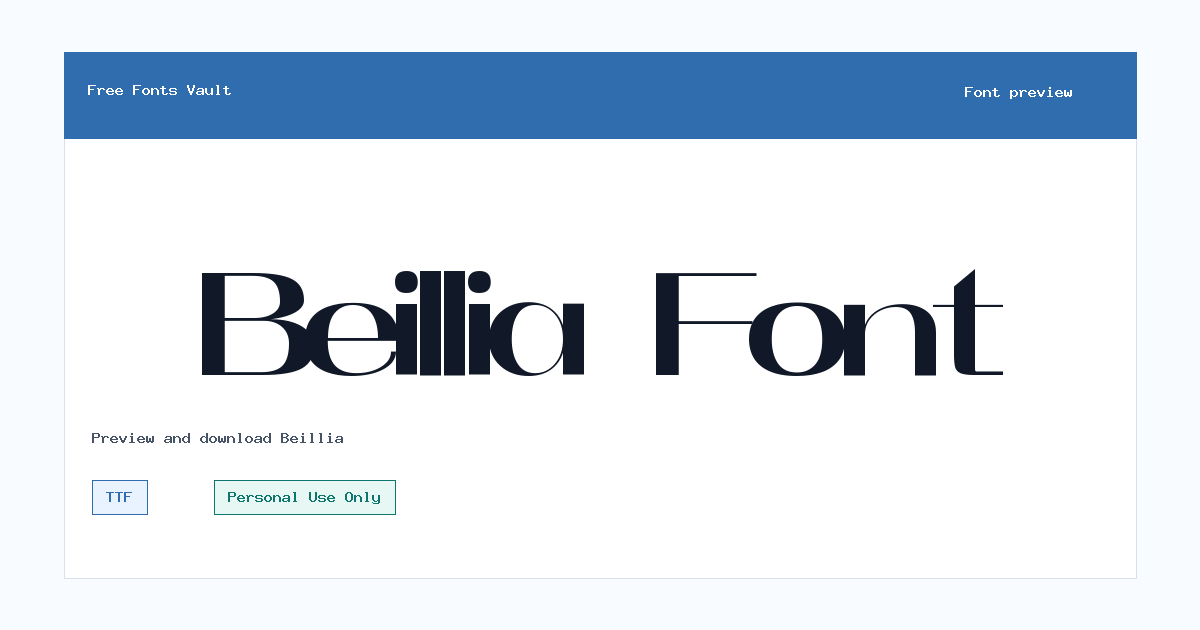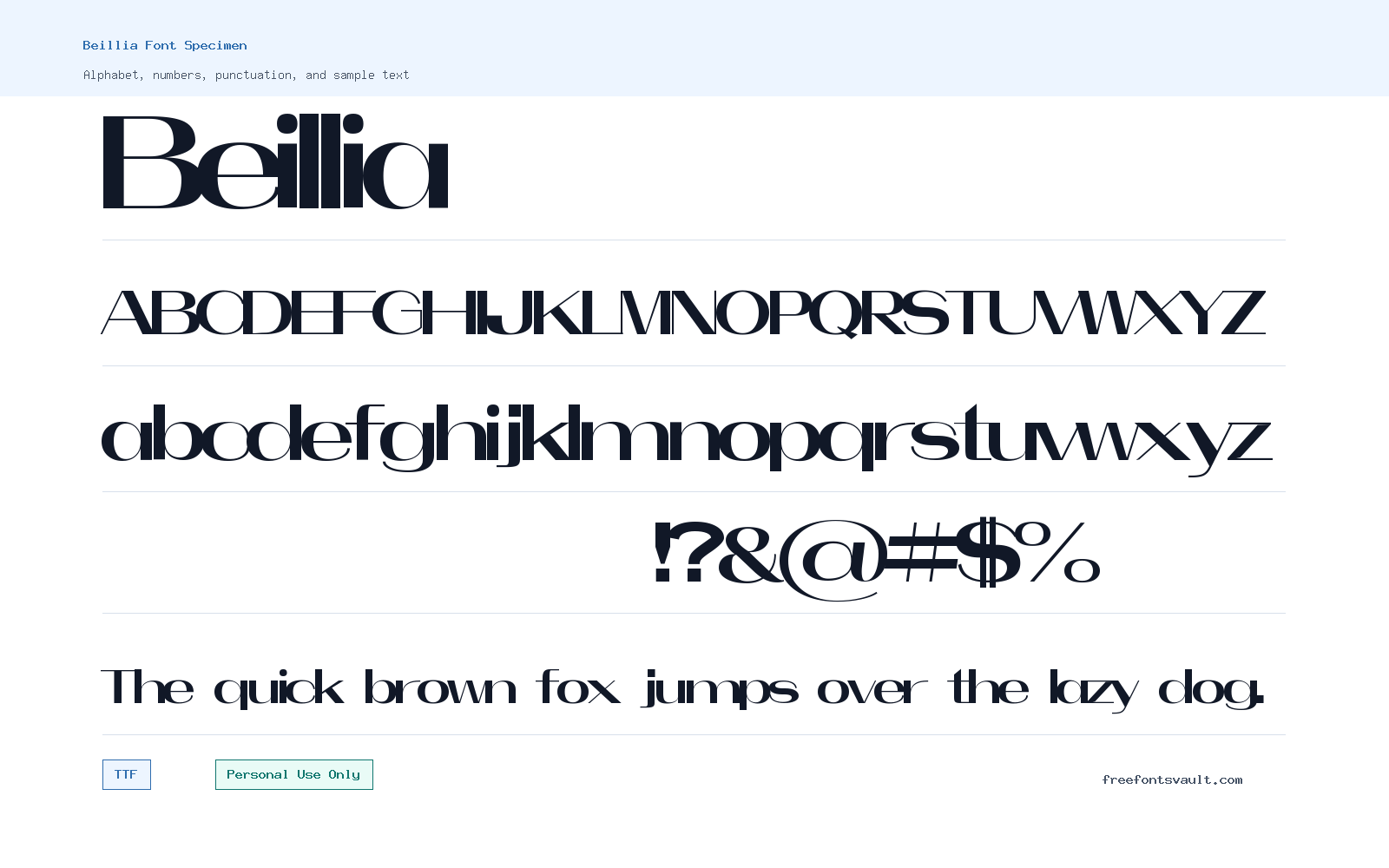
Beillia
Beillia font.
Beillia is a sans serif font with a clean regular style, suited to visitors who want a simple display face for personal design practice, previews, and non-commercial projects.
About Beillia Font
For best results, test Beillia with the exact words you plan to use. Some fonts look strong in a single word but need more checking in longer phrases, mixed-case lines, numbers, punctuation, and tight layouts. Try it at headline size first, then reduce the size to see where readability starts to drop. If you are building a poster, thumbnail, or logo concept, pair Beillia with a quiet body font so the main text does not compete with the display lettering. A neutral serif or a plain system sans can help keep supporting text easy to read while Beillia carries the visual focus.
- Sans serif style suited to short display text and personal design mockups
- Personal logo concepts, name designs, and branding drafts
- Headlines, social posts, posters, thumbnails, and short title text
Preview your exact wording, especially names, punctuation, numbers, and mixed-case text. Also test it at the final size, because display fonts can feel different when reduced.
What fonts pair well with Beillia?
Use a simple, readable companion font for body copy. A neutral sans serif or a restrained serif can keep longer text clear while Beillia handles the headline or logo-style element.